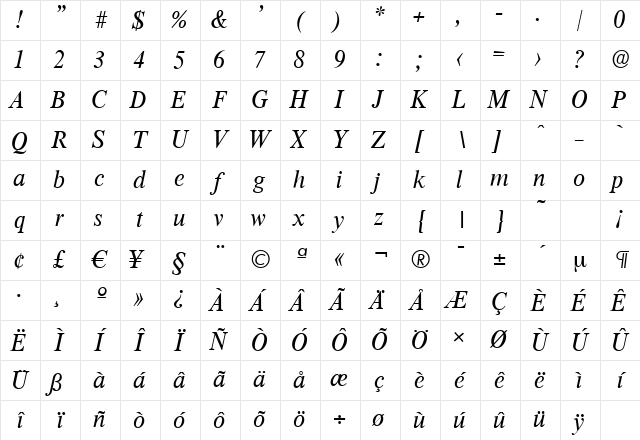
ThamesSerial Italic
Design Context for ThamesSerial
ThamesSerial is a composed and adaptable typeface that performs quietly and consistently across a wide range of design contexts. The slanted form adds forward momentum and visual energy.